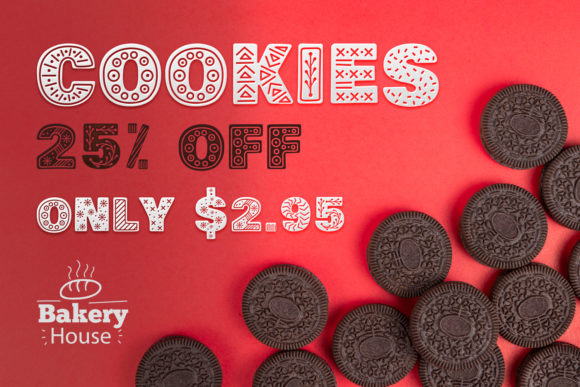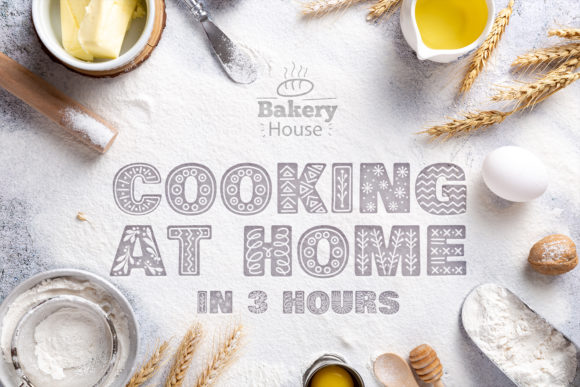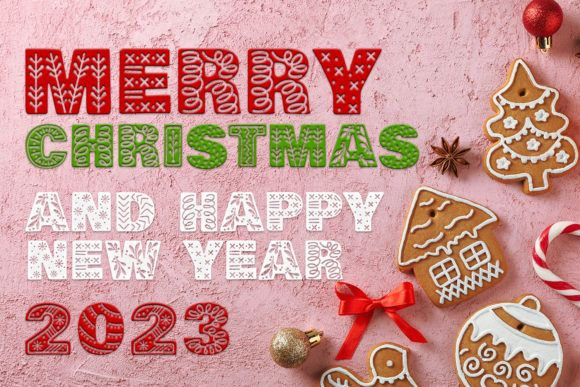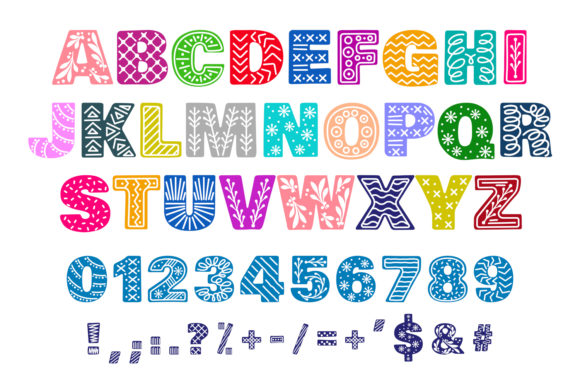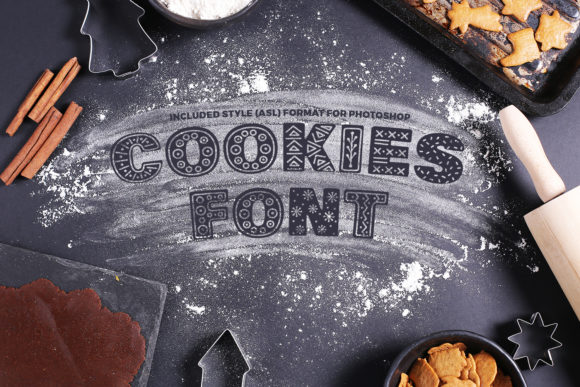
Cookies Font: The Sweetest Addition to Your Holiday Projects
Are you looking for a font that will add a touch of festive cheer to your holiday projects? Look no further than Cookies Font! This beautiful display font is designed to bring a Christmas style to your designs, and its amazing extras will inspire you to create something truly special.
What is Cookies Font?
Cookies Font is a stunning display font that is perfect for adding a holiday twist to any crafting idea. Its unique and festive design makes it ideal for use in a variety of projects, from Christmas cards and invitations to holiday-themed crafts and DIY projects.
Features of Cookies Font
Cookies Font is more than just a beautiful font – it’s a comprehensive design solution that includes a range of amazing extras to help you create stunning holiday projects. Some of its key features include:
• Festive Design: Cookies Font features a unique and festive design that is perfect for the holiday season.
• Display Font: This font is designed as a display font, making it perfect for use in titles, headings, and other large text applications.
• Christmas Style: Cookies Font has a distinctly Christmas style that will add a touch of holiday cheer to any project.
• Amazing Extras: This font comes with a range of amazing extras, including graphics and illustrations that will help you create stunning holiday projects.
Why Use Cookies Font?
There are many reasons why Cookies Font is the perfect choice for your holiday projects. Here are just a few:
• High-Quality Design: This font features a high-quality design that is perfect for use in professional-looking projects.
• Festive and Fun: Cookies Font is the perfect way to add a touch of festive fun to your holiday projects.
• Inspires Creativity: The amazing extras that come with Cookies Font will inspire you to create something truly special and unique.
Tips and Ideas for Using Cookies Font
Here are some tips and ideas for using Cookies Font in your holiday projects:
• Use it for Titles: Use Cookies Font for titles and headings to add a touch of festive cheer to your project.
• Add Graphics: Use the graphics and illustrations that come with Cookies Font to add a holiday twist to your project.
• Experiment with Colors: Experiment with different colors and textures to add depth and interest to your project.
• Make it Personal: Use Cookies Font to create personalized holiday gifts, such as customized ornaments or decorations.
Cookies Font is a beautiful display font that is perfect for adding a touch of festive cheer to your holiday projects. With its unique and festive design, amazing extras, and ease of use, it’s the perfect choice for designers and crafters looking to create something special. So why wait? Download Cookies Font today and start creating your own stunning holiday projects!